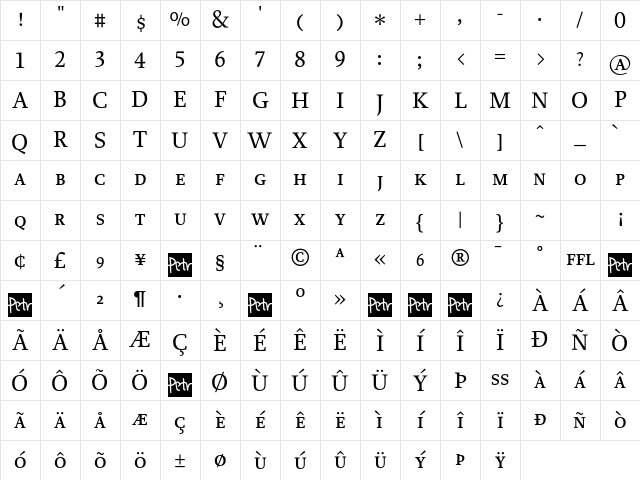
Complete Proforma MediumSC glyph index. Displaying only characters natively supported by Proforma MediumSC font.
Proforma is a composed and adaptable typeface that performs quietly and consistently across a wide range of design contexts.